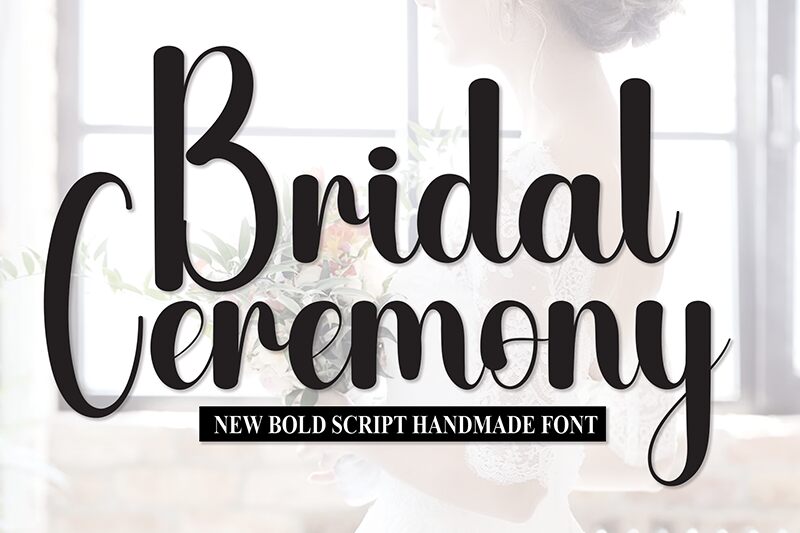
Bridal Ceremony
Bridal Ceremony font by Andi Moz is a sweet and friendly free handwritten font. Suitable for projects that need a playful touch, the cute and fun letter shapes are accompanied by heart decorations. Experience its great friendly feel in your next design.
Plan to use it for logos, branding, merch designs, T-shirt prints, posters, advertisements cards/covers, stickers or labels, stationery designs book covers or illustrations.